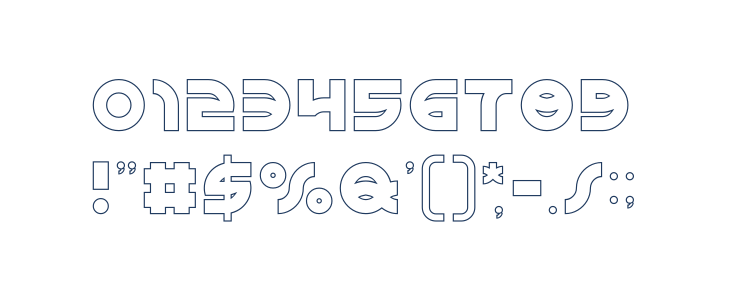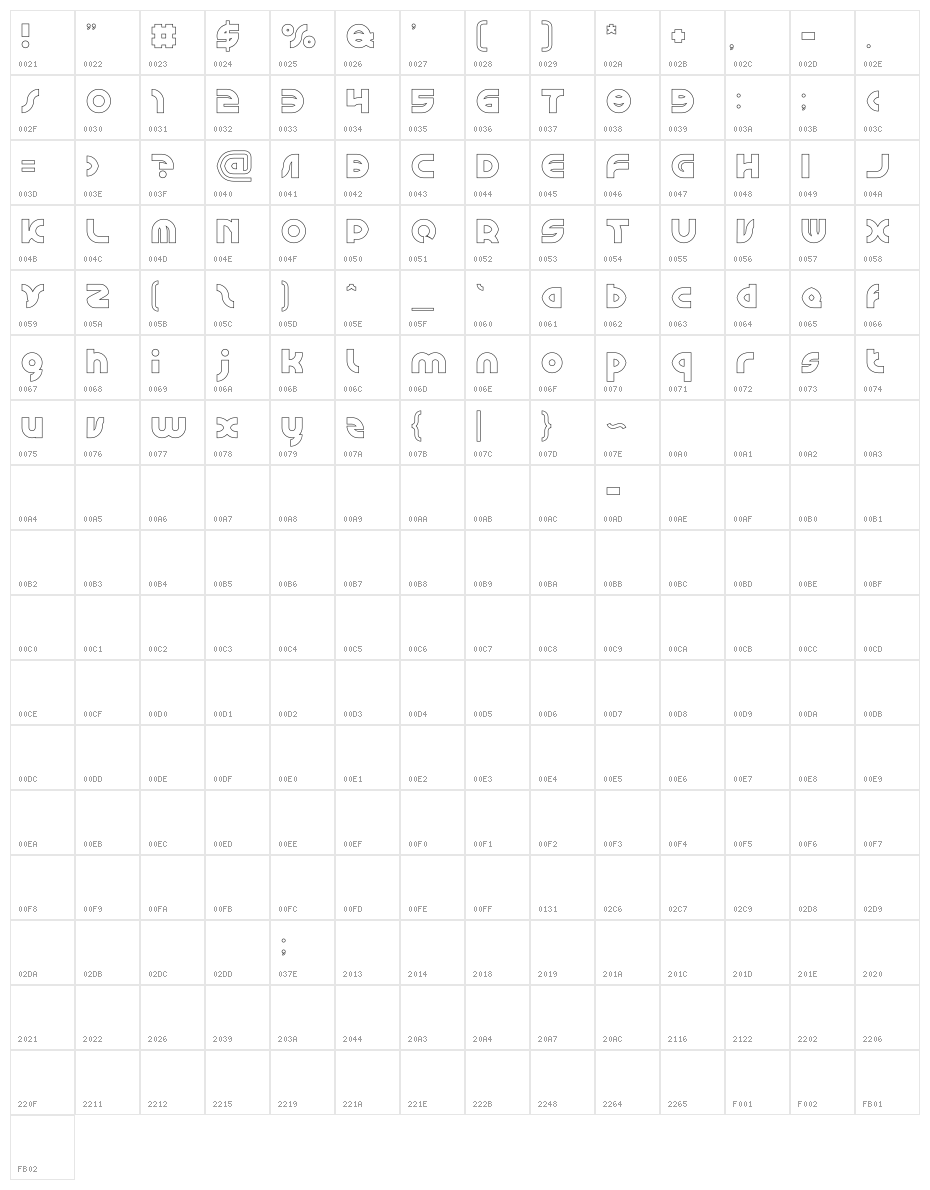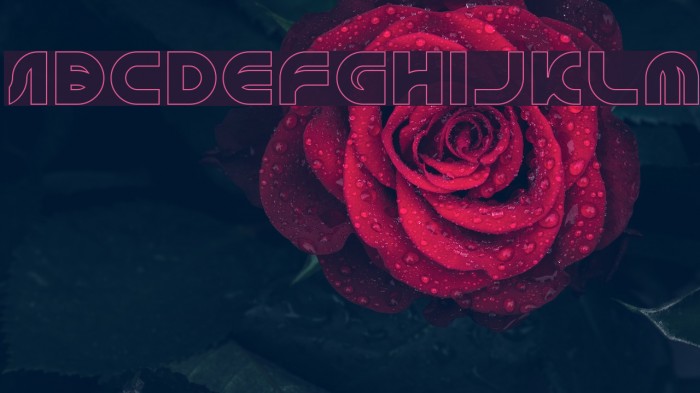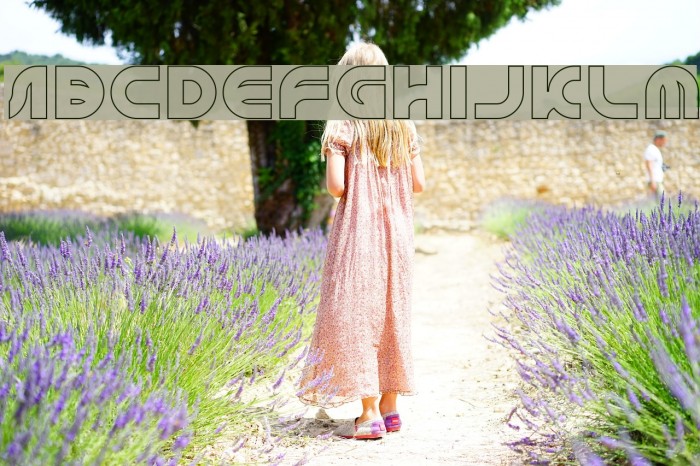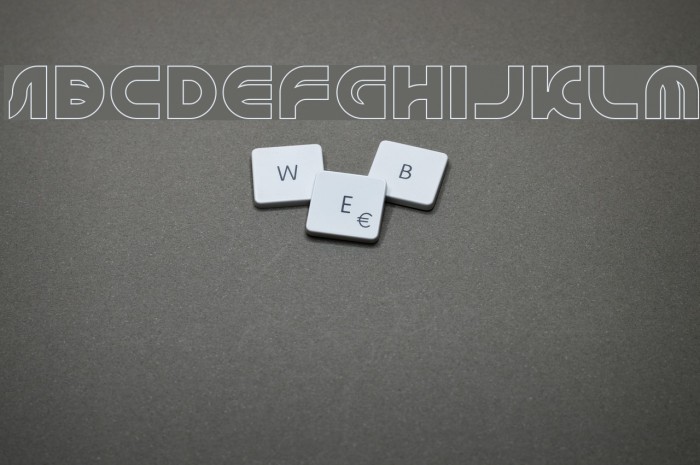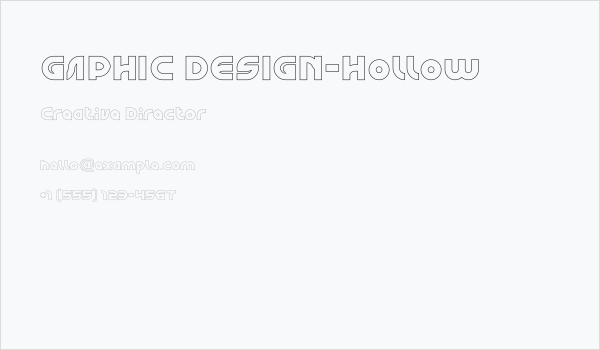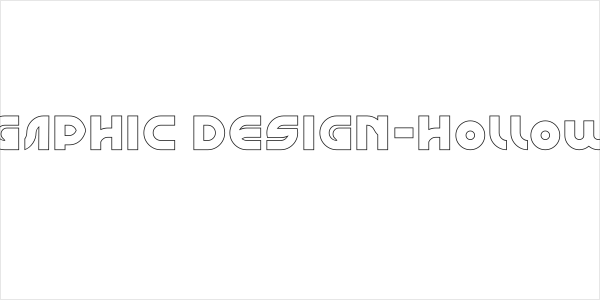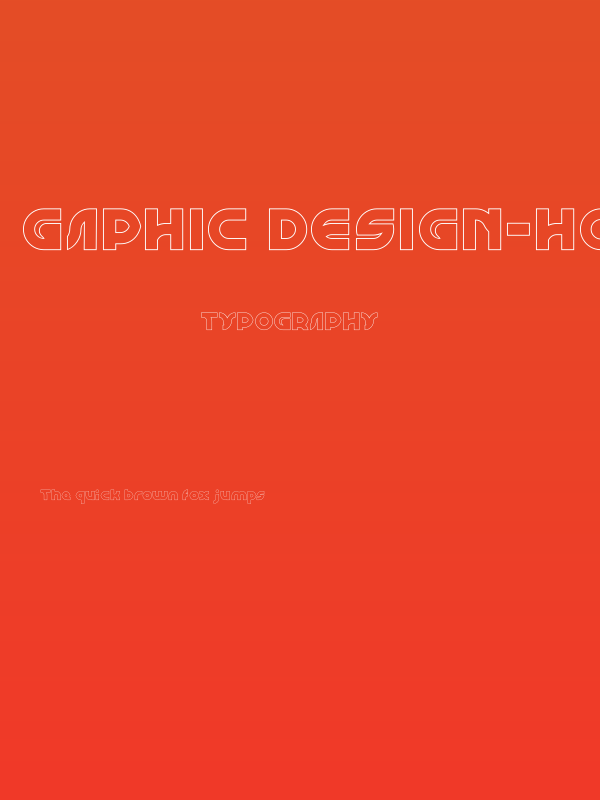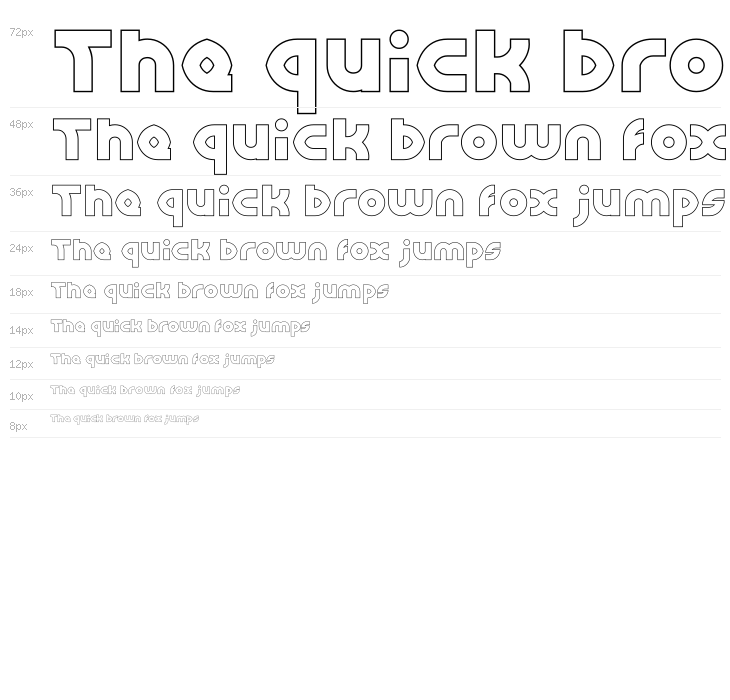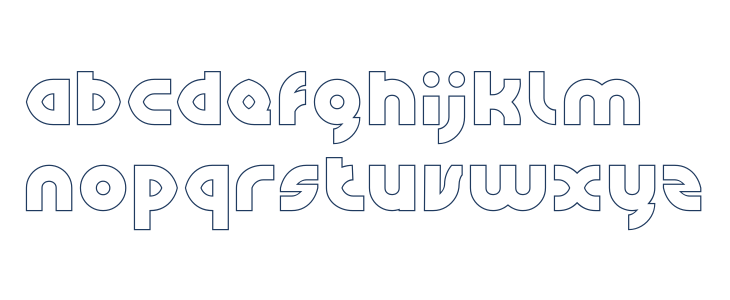
GAPHIC DESIGN-Hollow Font
GAPHIC DESIGN-Hollow Description
This font features a hollow, geometric design with a futuristic and modern aesthetic. The characters are constructed with clean, bold lines that form distinct shapes, creating a sense of depth and dimension. The uppercase and lowercase letters maintain a consistent style, with rounded edges and a uniform thickness throughout. The numerals and special characters follow the same design principles, ensuring a cohesive look across all elements. This font's unique style makes it stand out, offering a visually striking option for various design projects.
| Proposed Projects | Ideal for branding, posters, digital artwork, and any project requiring a modern, eye-catching typeface. |